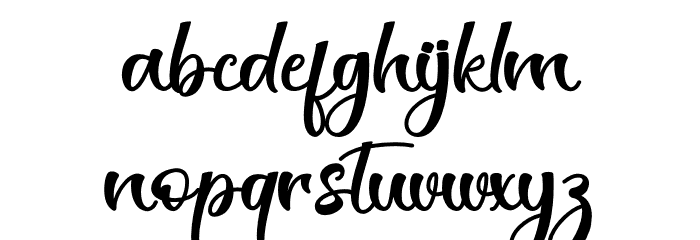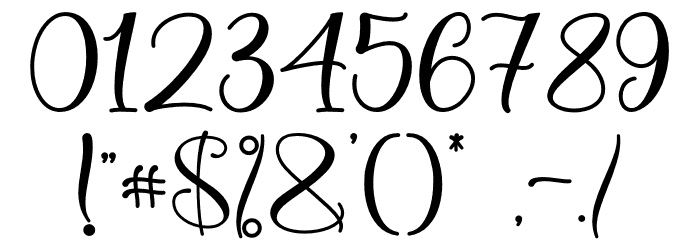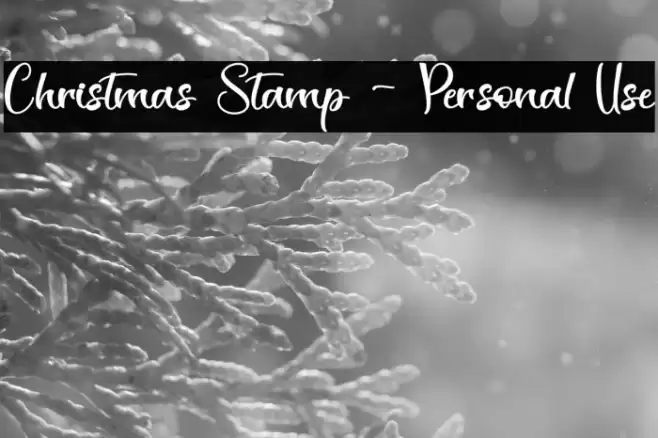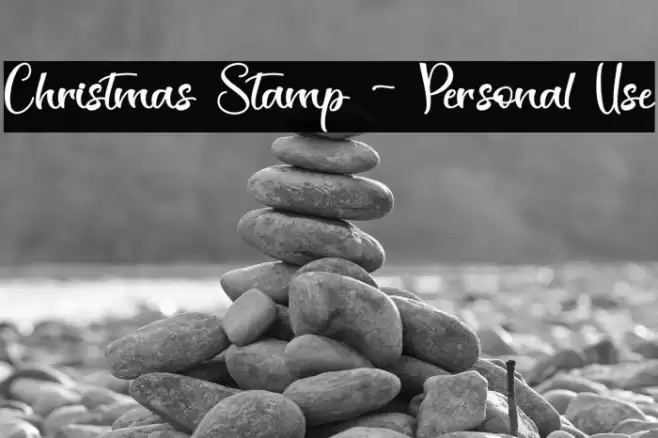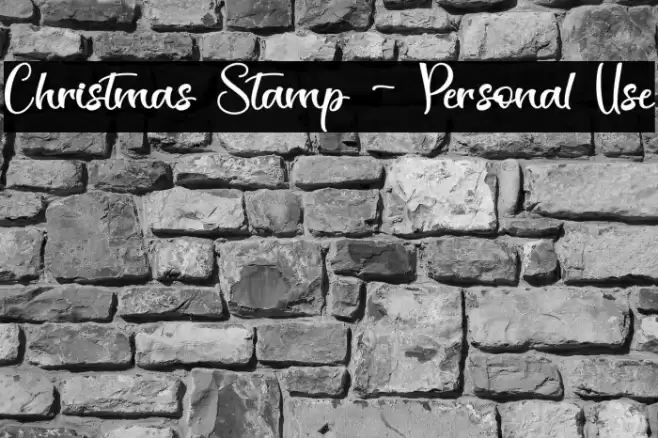
Christmas Stamp - Personal Use Font
This font features a whimsical and festive style, perfect for holiday-themed projects. The uppercase letters are tall and elegant with playful curves, while the lowercase letters maintain a consistent flow with a slightly more casual appearance. The numerals are bold and clear, ensuring readability. Special characters are creatively integrated, adding to the font's charm. The overall design is reminiscent of handwritten calligraphy, with a touch of modern flair, making it suitable for a variety of creative applications.
A whimsical, festive font with playful curves and a handwritten calligraphy style.
- Proposed Projects: Ideal for holiday cards, festive invitations, seasonal branding, and decorative posters.
- Overall Style: Festive, Whimsical, Handwritten
- Use Case: Headlines, Invitations, Decorative text